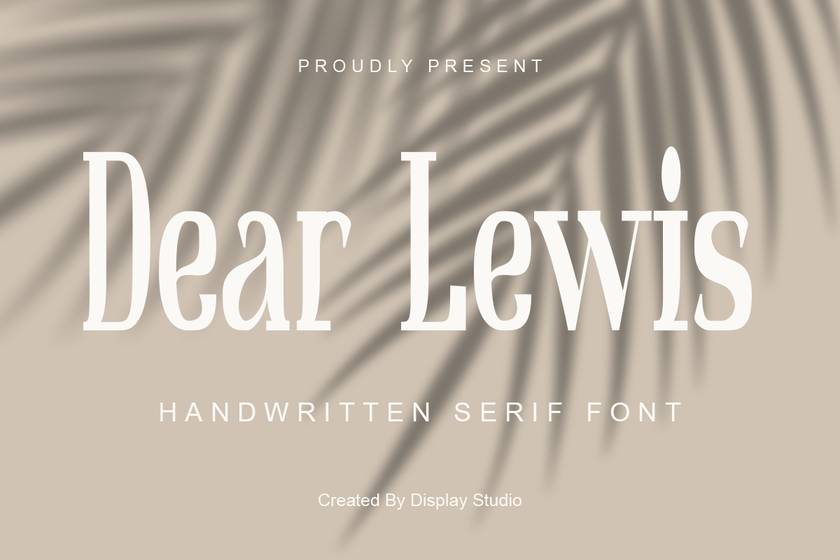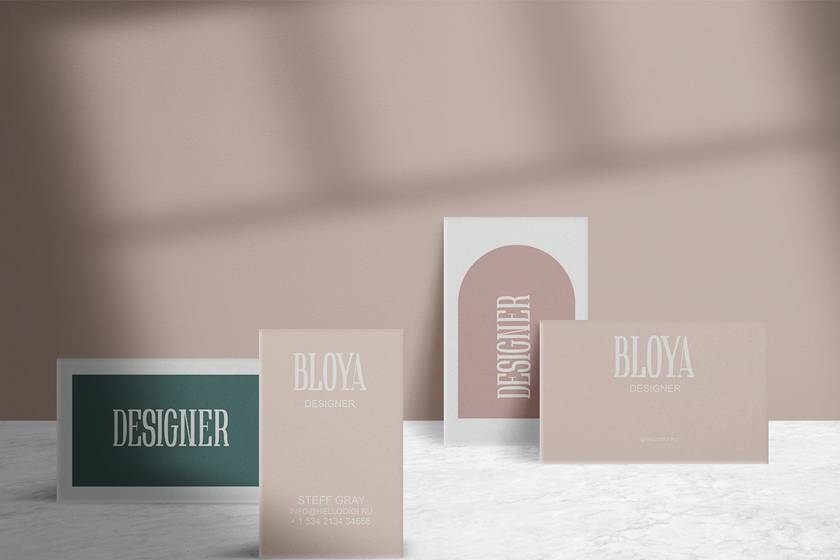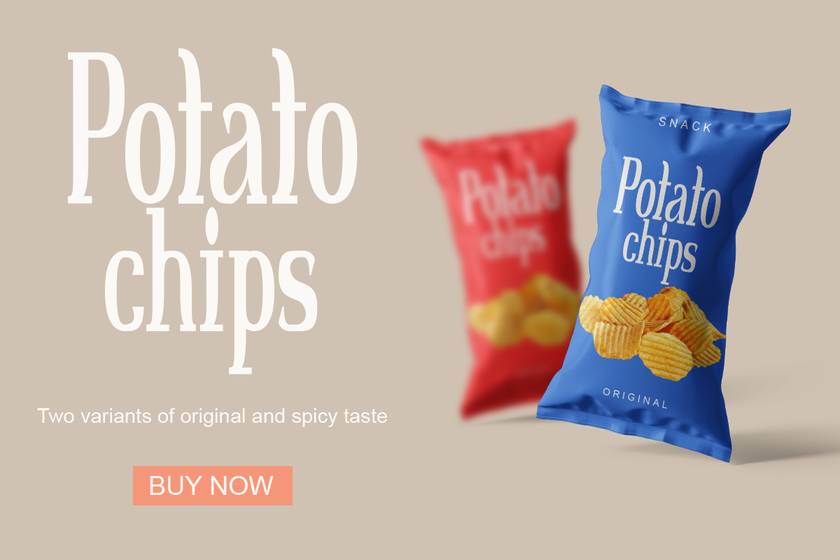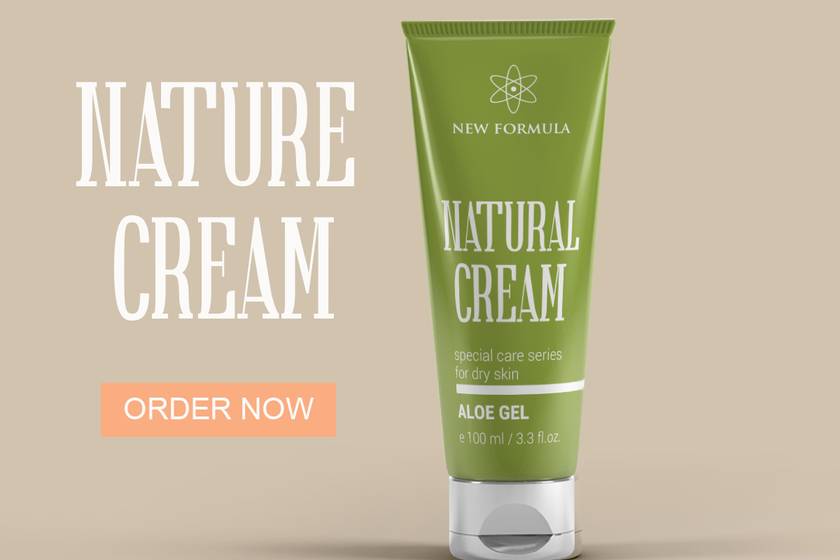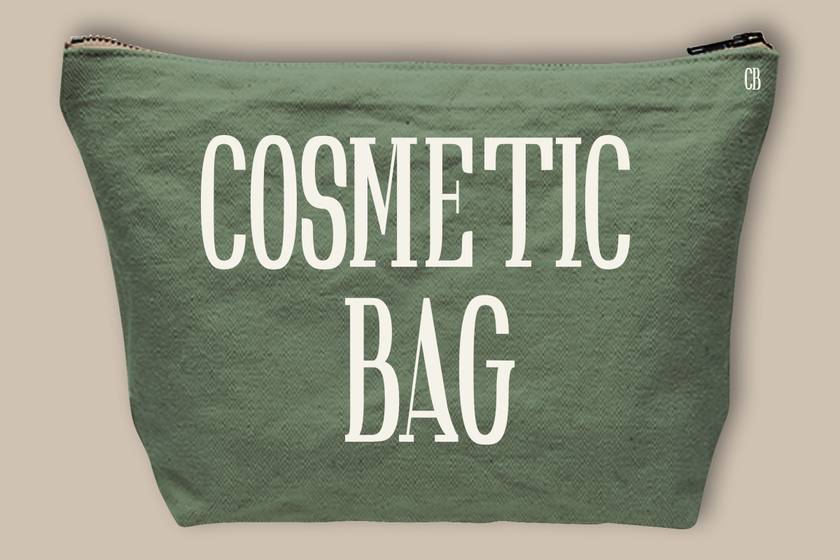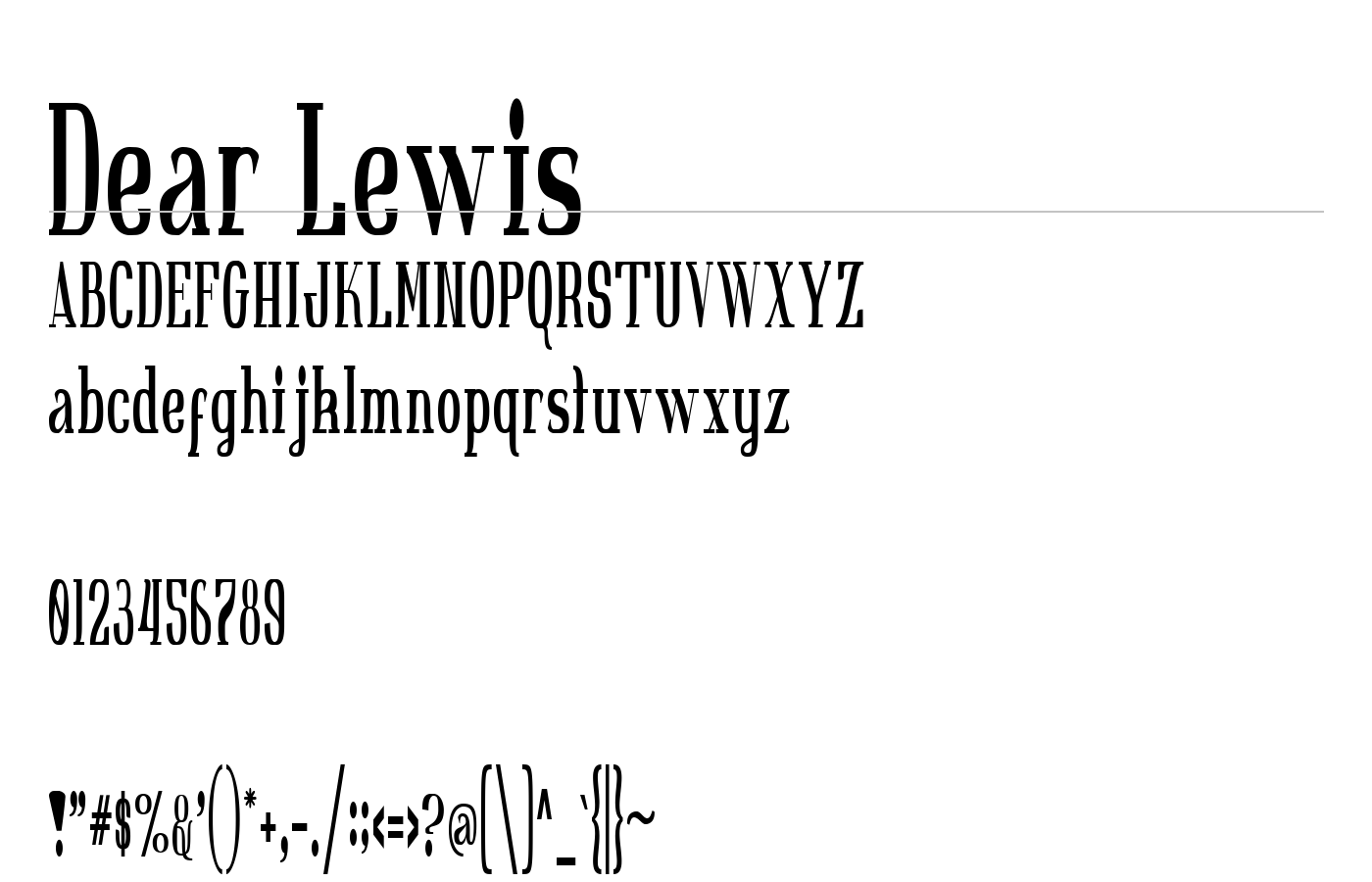
Dear Lewis is a tall, condensed serif font with a high contrast between thick and thin strokes, featuring elegant, elongated letterforms that convey a vintage yet refined personality. Its distinctive thin serifs and narrow proportions make it ideal for sophisticated headlines and branding, especially in fashion or editorial design where a dramatic and stylish impact is desired. This font works best in display settings, bringing a touch of classic elegance and narrow, graceful flair to any project.
Dear Lewis Font
About Dear Lewis Font
| Font family | Dear Lewis Font |